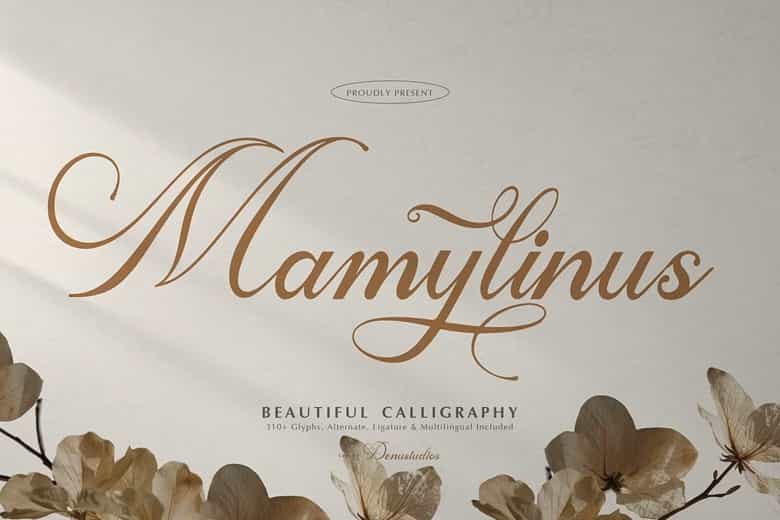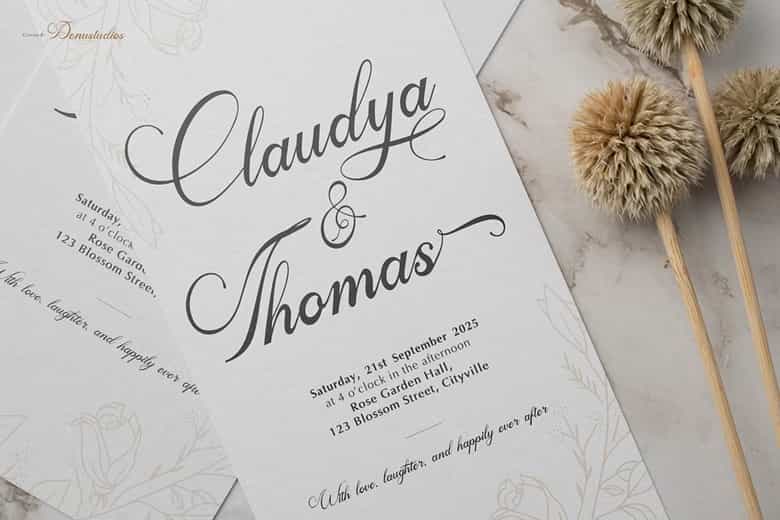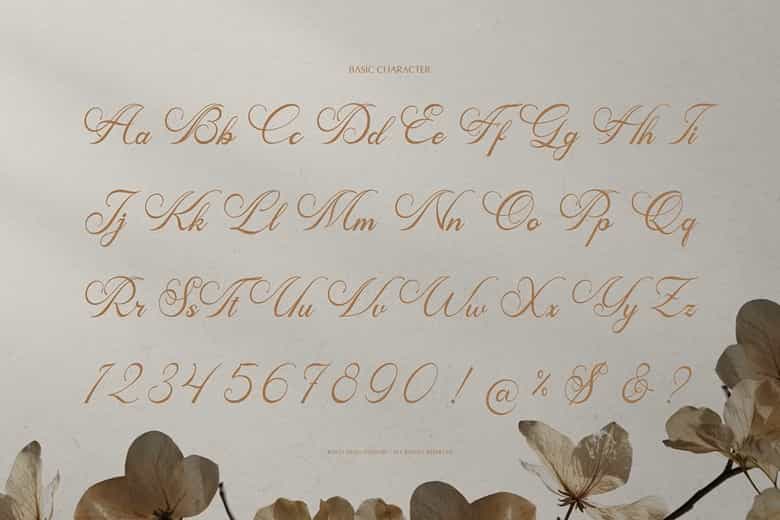
Discover Mamylinus Font, part of the Calligraphy collection—a versatile and unique font perfect for adding a personal touch to your projects. Download it for free and enjoy crafting designs with style, from invitations to social media posts. This font is available exclusively for personal use, giving you the freedom to create without limits. Unlock your creativity with Mamylinus Font today!
Mamylinus is a new calligraphy script typeface, It’s suitable for any projects such as: logos, branding projects, homeware designs, product packaging, mugs, quotes, posters, shopping bags, t-shirts, book covers, name card, invitation cards, greeting cards, label, photography, special events, and all your other lovely projects that need a beautiful calligraphy taste.